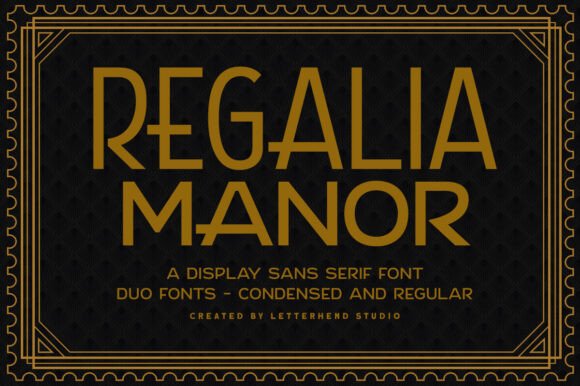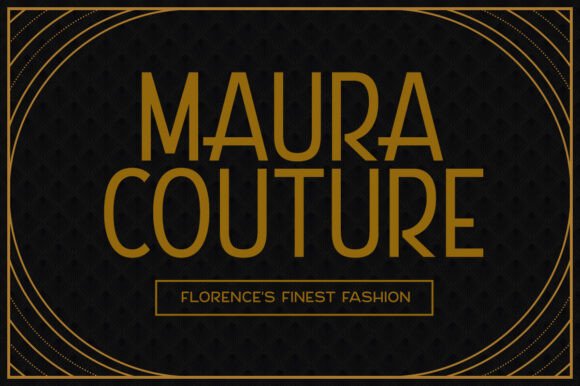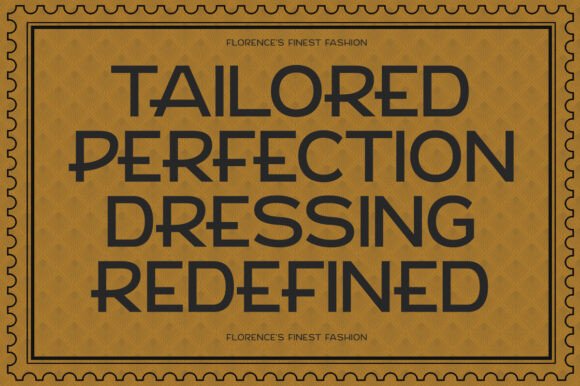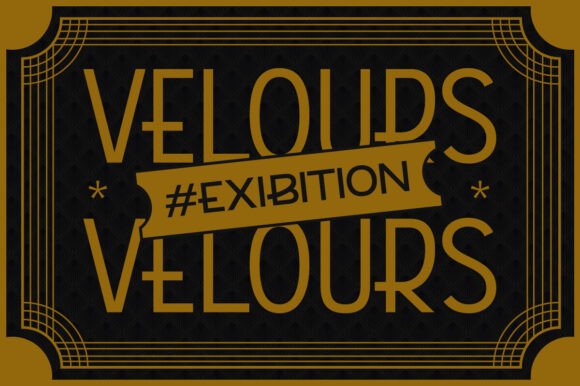
Regalia Manor Font
About the Regalia Manor Font
Elevate your designs with Regalia Manor Font, a font that combines sophistication with readability. Regalia Manor is a luxurious display sans-serif font duo, featuring both condensed and regular styles. With its elegant, geometric design and a touch of art deco influence, this font exudes sophistication and class, making it perfect for branding, high-end packaging, invitations, signage, and editorial design. The clean lines and refined structure create a bold yet timeless aesthetic, ideal for projects that demand a premium, upscale feel.
Regalia Manor excels in headlines, logos, and short-form text where its bold presence commands attention. It’s equally effective for packaging design, especially for luxury goods, and in creating impactful signage. However, its condensed forms and strong geometric structure make it less suitable for body text or lengthy paragraphs; readability suffers at smaller sizes.
For optimal pairings, consider a neutral sans-serif like Open Sans or a classic serif such as Garamond for body copy, balancing Regalia Manor’s boldness with a sense of calm. A script font like Great Vibes could add a touch of vintage elegance to invitations or branding projects using Regalia Manor.
Its overall personality is sophisticated and confident, conveying luxury and a sense of timeless style. Brands targeting discerning consumers seeking high-quality products or services will find this font a strong visual asset.
Regalia Manor Font Usage Examples
Regalia Manor Font Example